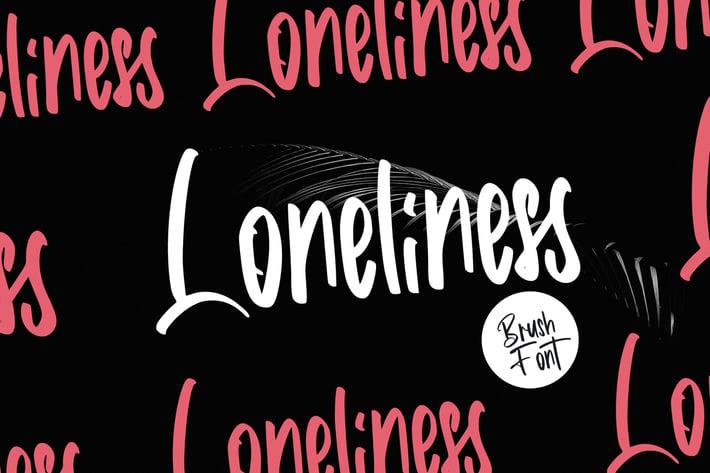
Loneliness | Brush Font
Loneliness | Brush Font with a calligraphy style, So beautiful on invitation like greeting cards, branding materials, business cards, quotes, posters, and more!